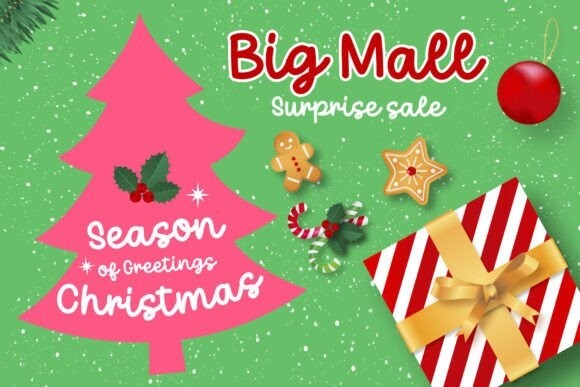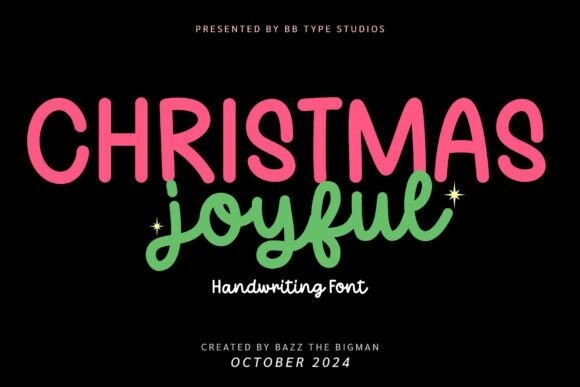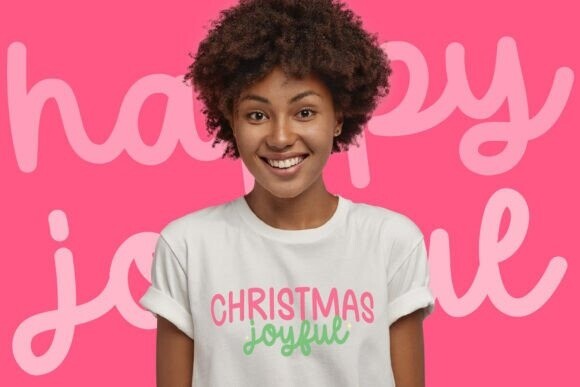
Christmas Joyful Font
Christmas Joyful Font. This adorable, handcrafted font exudes a distinctive and organic vibe that skilfully complements a broad spectrum of designs. Its inherent versatility is only bound by the bounds of your creativity, enabling you to craft truly exceptional designs with a personal touch. Effortlessly infuse a dose of cheerful friendliness into your creative pursuits with the authentic, singular style of Christmas Joyful!